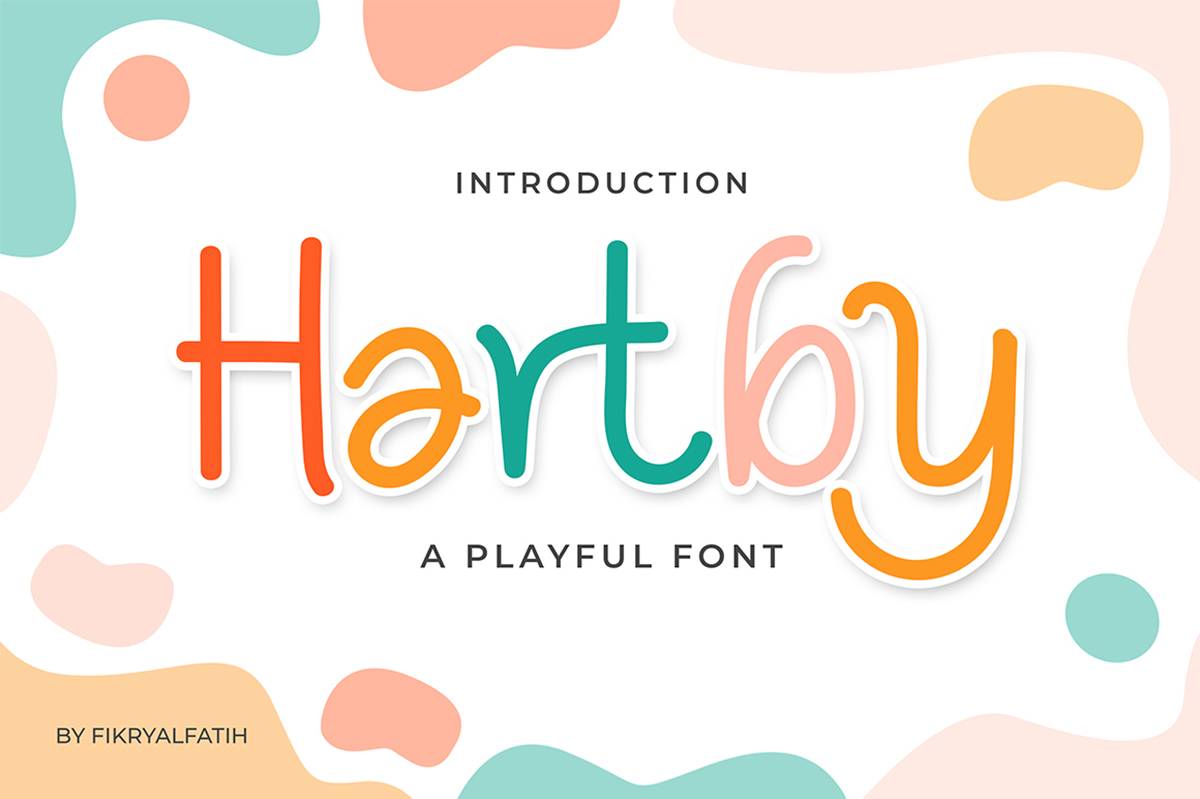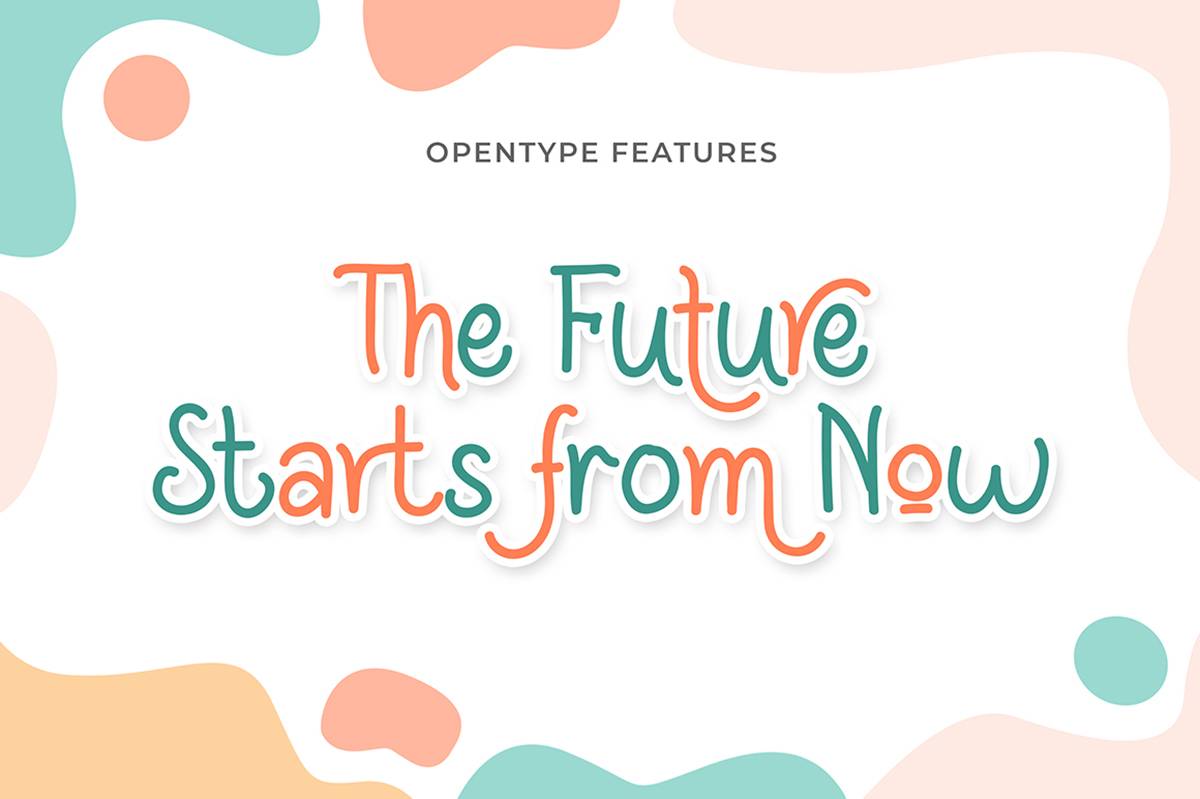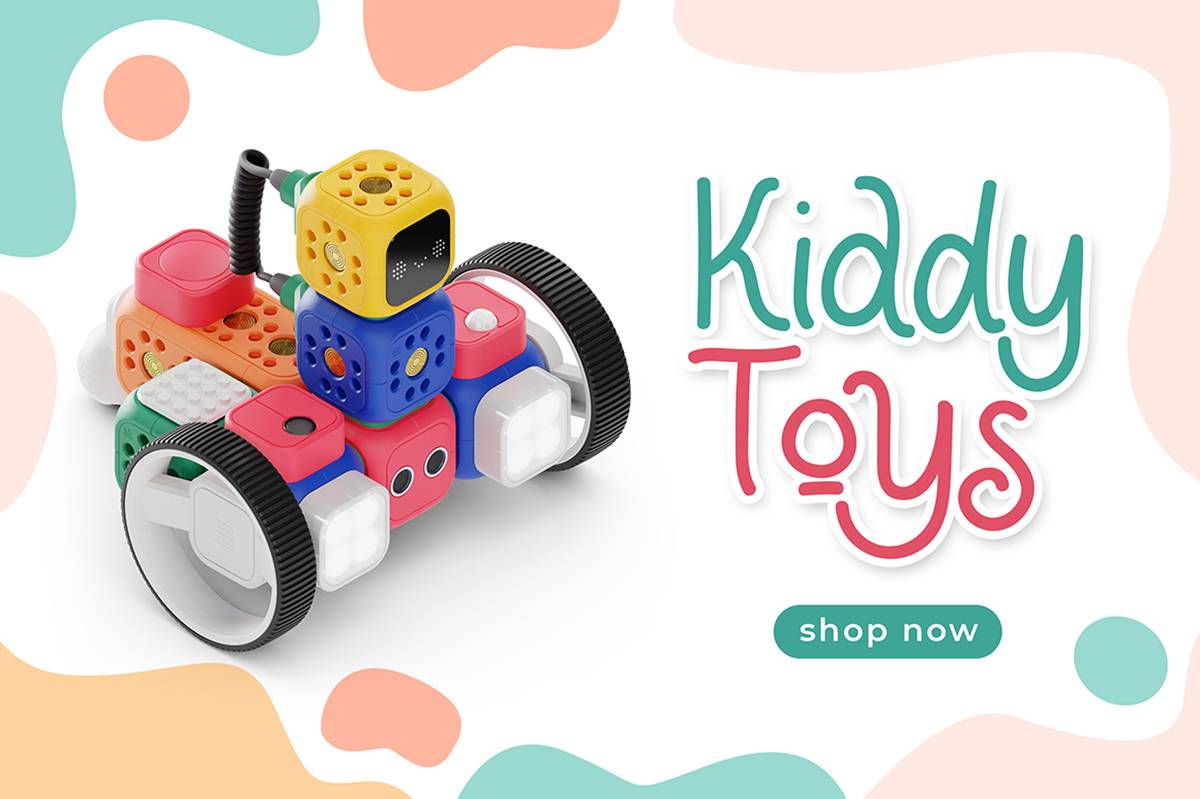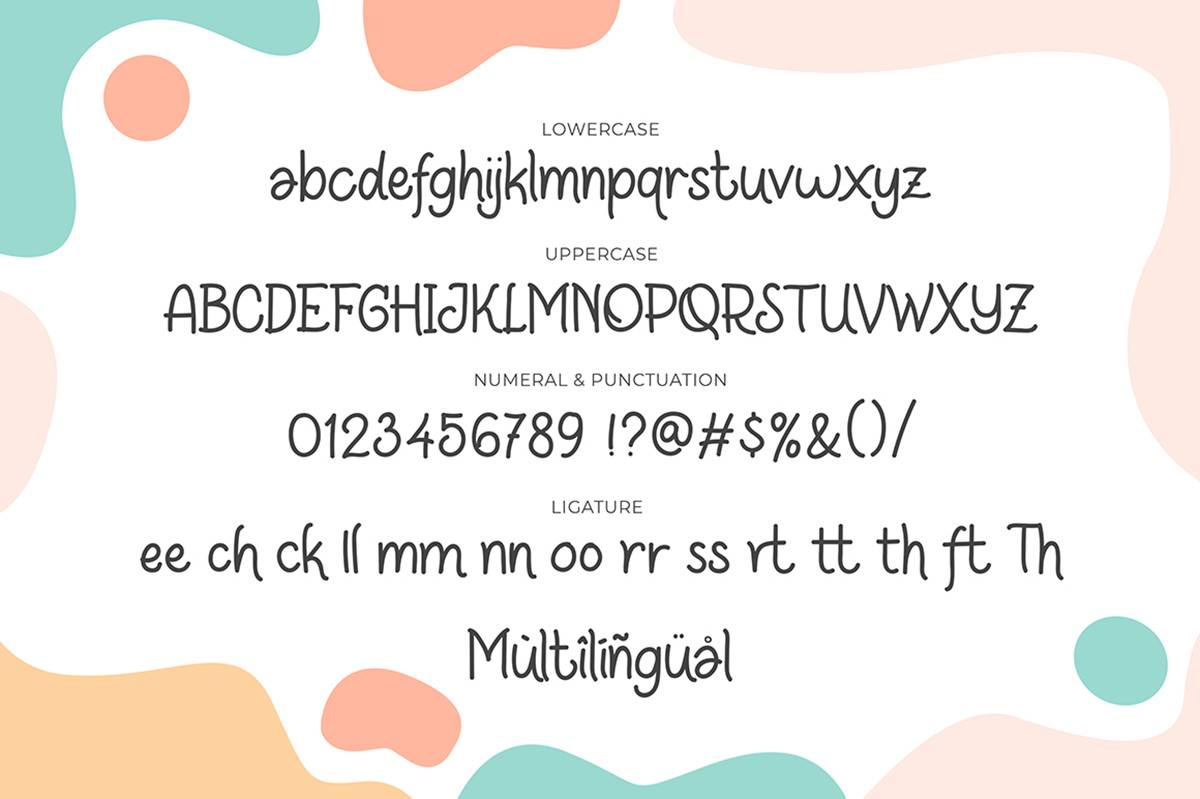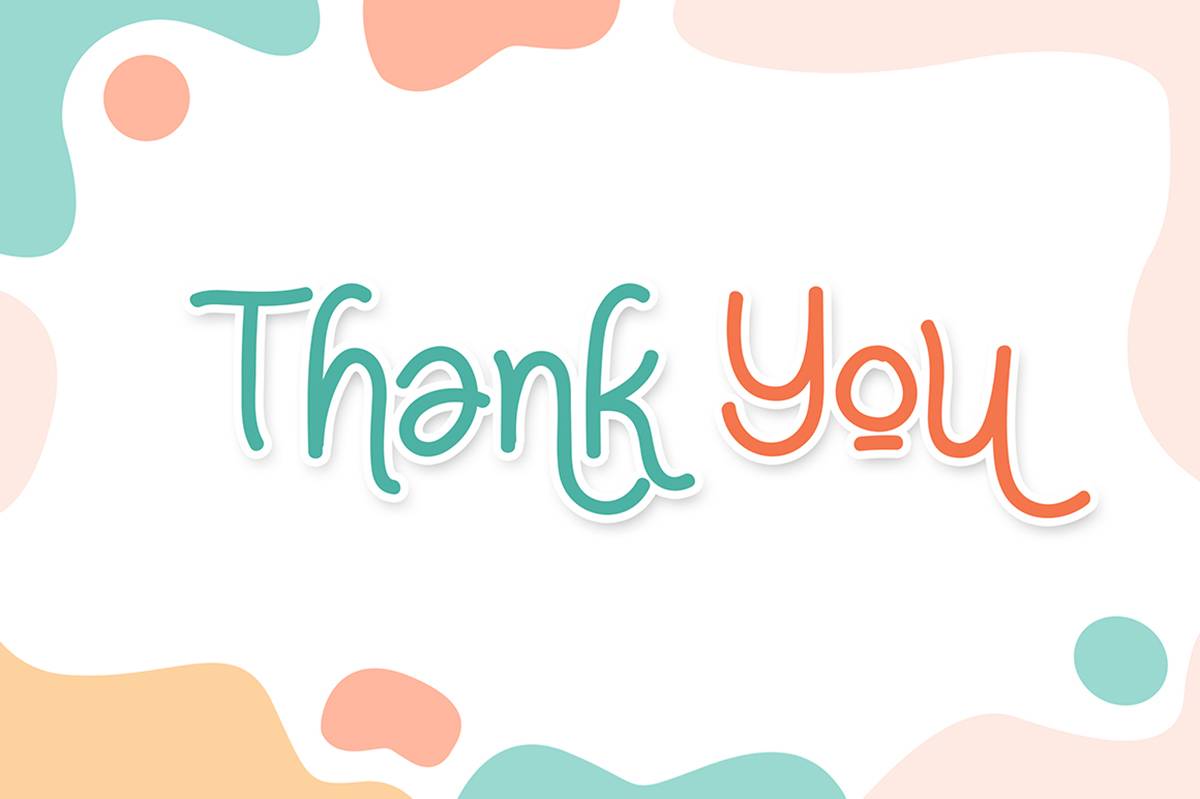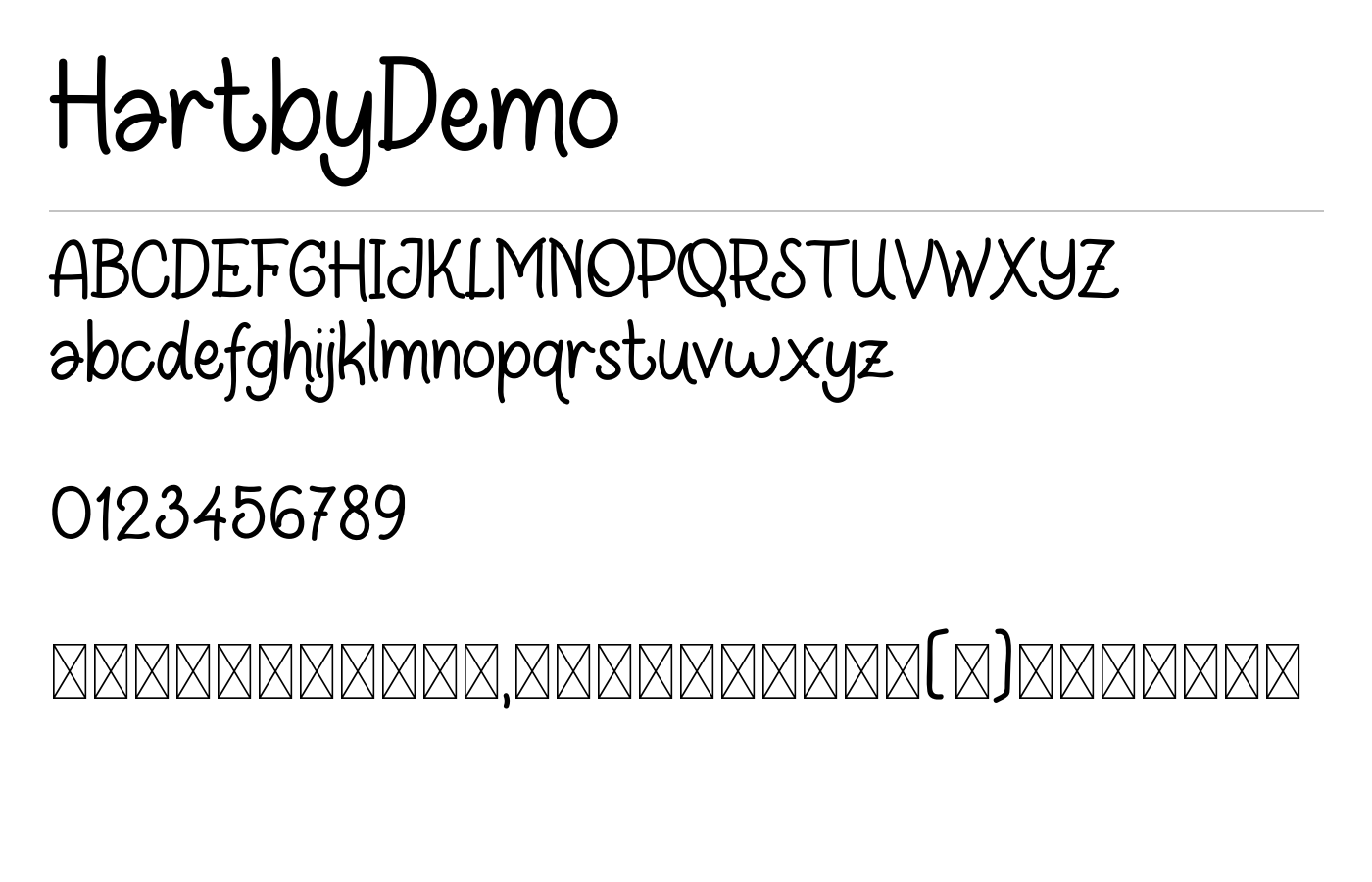
Hartby Playful is a casual, handwritten sans serif font that features a light weight with a lively, slightly irregular stroke style giving it a friendly and approachable character. Its tall x-height and simple, rounded letterforms make it highly readable, while its whimsical curves and unique details add a fun, youthful vibe ideal for informal branding, children’s materials, and playful design projects. This font works best in headlines and logos where a charming and inviting personality is desired.
Hartby Playful Font
About Hartby Playful Font
| Font family | Hartby Playful Font |
| Designer | fikryalfatih |